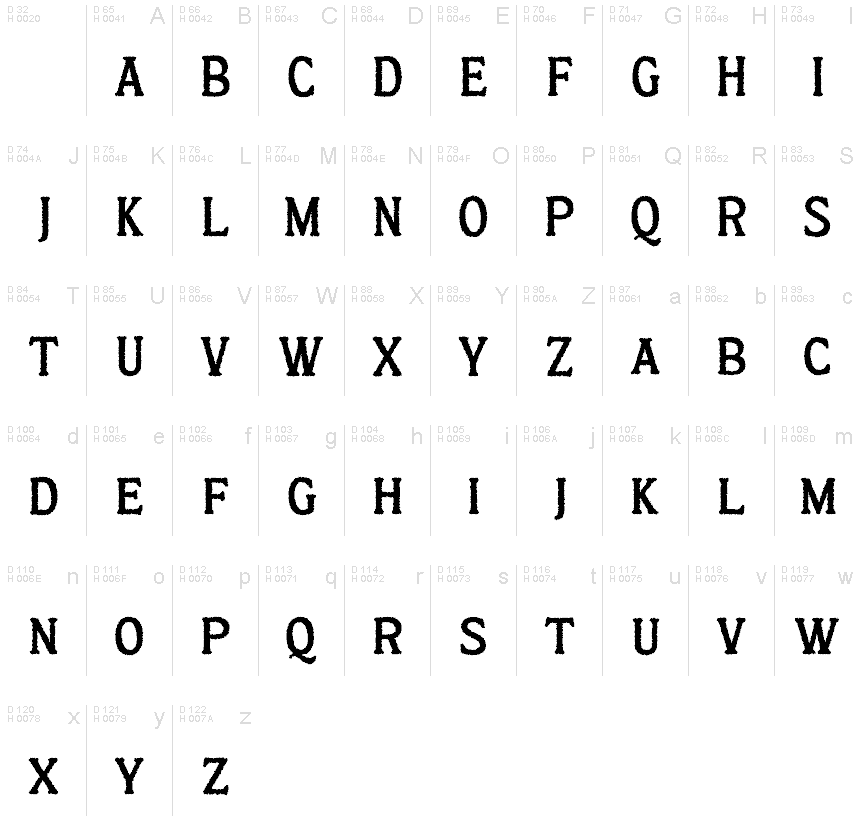
Burge Rough Demo Regular
Burge Rough font by Craft Supply Co. is a free display font with eroded style for rugged designs. Its uneven edges, grungy texture, and distinctive vintage characteristics will make your headlines stand out. This expressive typeface is especially suitable for eye-catching posters and other large-scale projects.